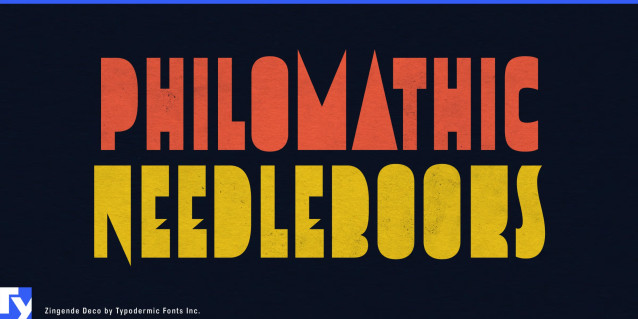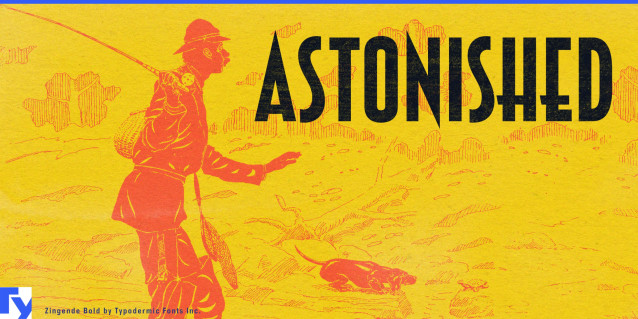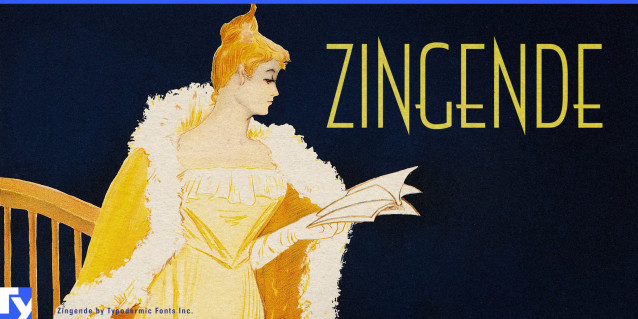
Zingende Font Family
Step into an era when elegance was built into every line and curve. Zingende captures the glamour of Art Deco at its peak, translating the geometry and vertical drama of 1920s and ’30s lettering into a modern, versatile display family. From its razor-sharp apexes to its graceful waistlines, Zingende’s forms rise like the skyline of a Deco metropolis—sleek, confident, and unmistakably refined.
The family offers two distinct moods. In its lighter weights, Zingende is airy and architectural, perfect for conveying sophistication in high-end branding, boutique packaging, or luxury invitations. At the other extreme, Zingende Deco replaces counters with bold geometric fills, transforming each letter into a striking graphic shape—ideal for posters, signage, or any design that needs to own the room. With six weights from Hairline to Heavy, plus matching Obliques, you can fine-tune its voice from a delicate whisper to a commanding headline. Subtle tapers and tall, narrow proportions give even the simplest text a sense of rhythm and movement, while its multilingual Latin support ensures your message resonates across cultures.
Zingende is an atmosphere. Whether it’s gracing a champagne label, setting the scene for a museum exhibit, or adding vintage prestige to a travel poster, it brings the poise of the past into the present with effortless style. In a world of fleeting trends, Zingende stands like a timeless landmark.